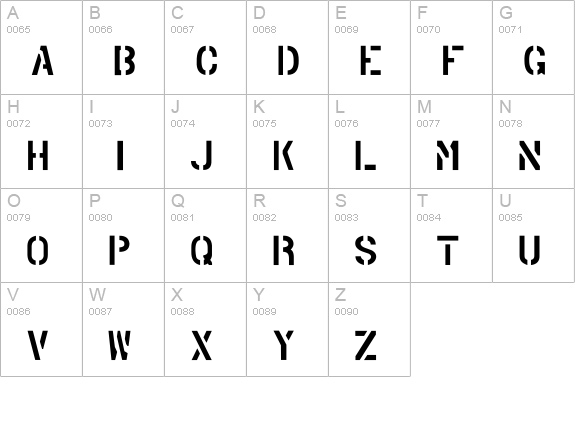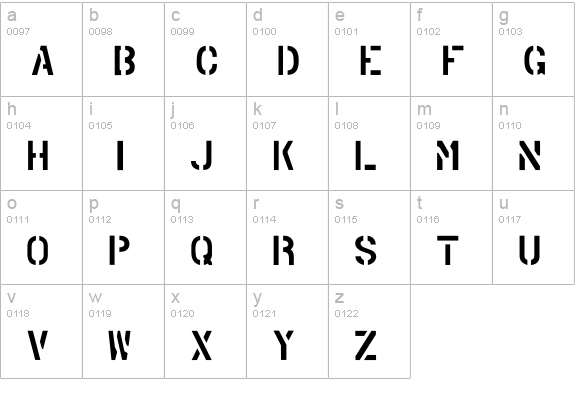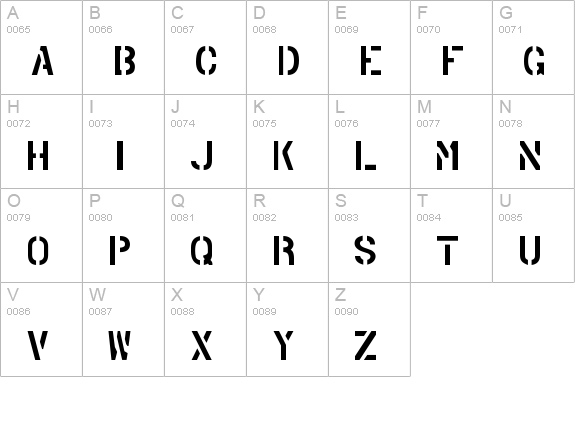
PHANTOM STENCIL Font Details
Introducing the captivating PHANTOM STENCIL font! This stunning typeface effortlessly combines boldness and elegance, making it perfect for a wide range of creative projects. With its stylish stencil design, PHANTOM STENCIL adds a touch of urban sophistication to any text or graphic. Crafted with meticulous attention to detail, this font boasts clean lines and sharp edges, giving your designs a modern and edgy appeal. Whether you're creating eye-catching headlines, striking logos, or unique branding materials, PHANTOM STENCIL delivers a powerful visual impact that is sure to leave a lasting impression. One of the most remarkable aspects of PHANTOM STENCIL is that it is available for free! Yes, you heard it right. This exceptional font can be freely downloaded at FontsMarket.com, the ultimate destination for font enthusiasts. Now you can unleash your creativity without any constraints, as PHANTOM STENCIL allows you to experiment and explore without breaking the bank. Compatible with various design software and platforms, PHANTOM STENCIL offers seamless integration into your workflow. Its versatility and flexibility make it an excellent choice for both digital and print projects. From posters and banners to websites and social media graphics, this font adapts effortlessly, ensuring your message is conveyed with utmost visual impact. Don't miss out on the opportunity to elevate your designs with the PHANTOM STENCIL font. Download it for free today at FontsMarket.com and unleash your imagination like never before. Let your creativity soar with this captivating and freely available typeface!